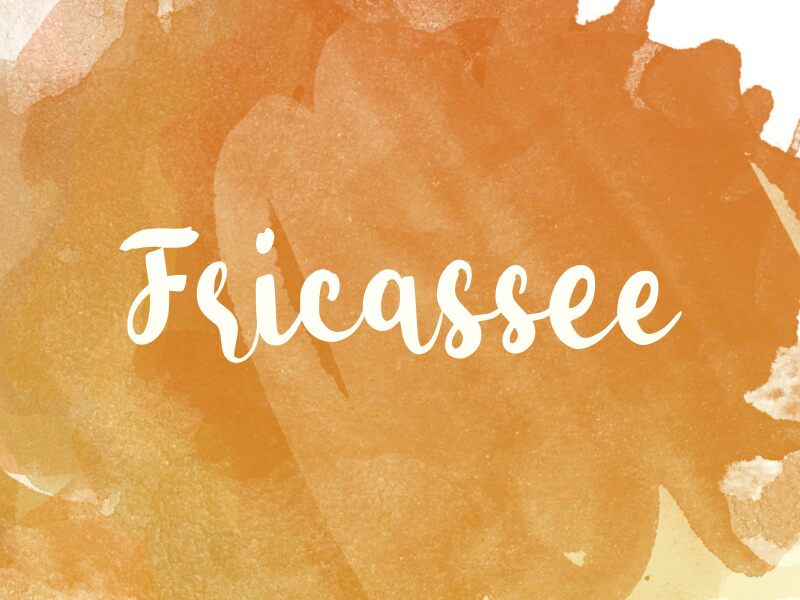
Fricassee
Fricassee, designed by wep, is a font that captures the charm of handwritten expression with its fluid and graceful style. Its characters dance with an effortless elegance, exuding a personal touch that is both inviting and distinctive. The casual yet sophisticated flair makes it an ideal choice for designs that require a touch of humanity and warmth.
Versatile in its aesthetic appeal, Fricassee lends itself beautifully to invitations, greeting cards, and branding projects that benefit from its intimate and artisanal vibe. Its signature look provides a delightful visual experience for creative endeavors seeking to convey authenticity and craftsmanship.